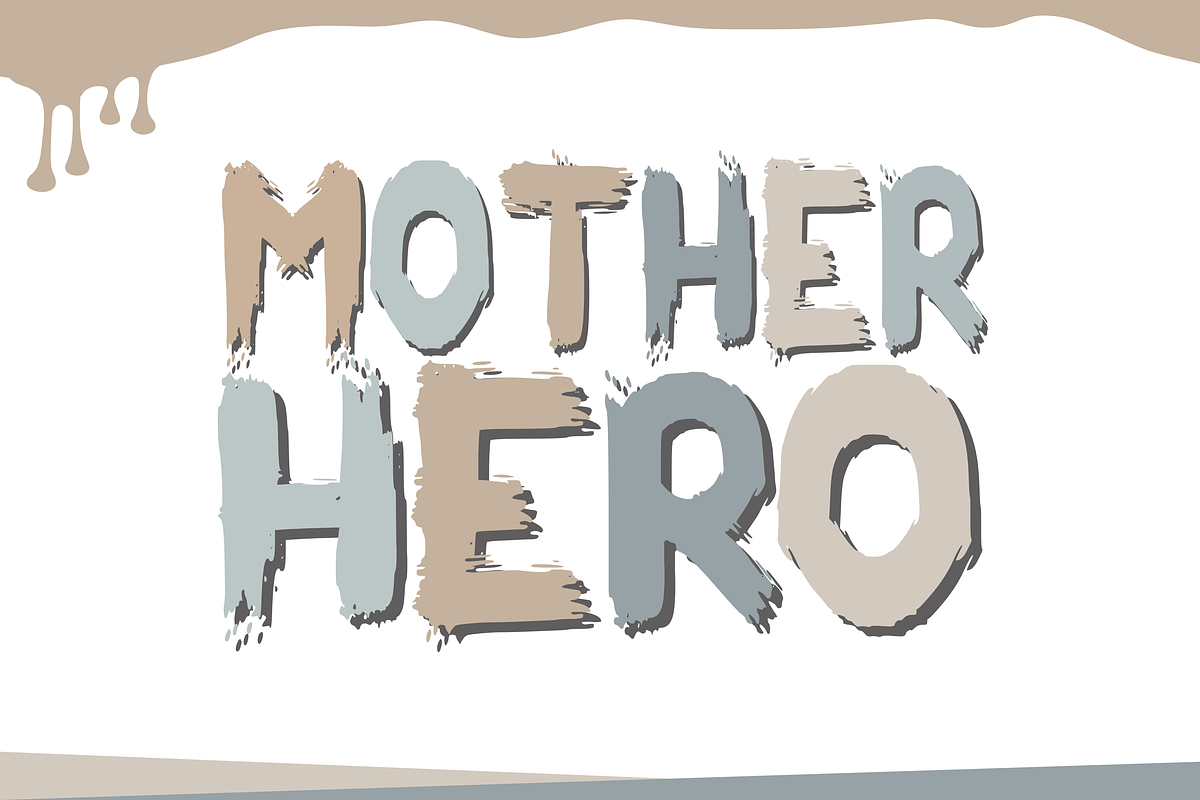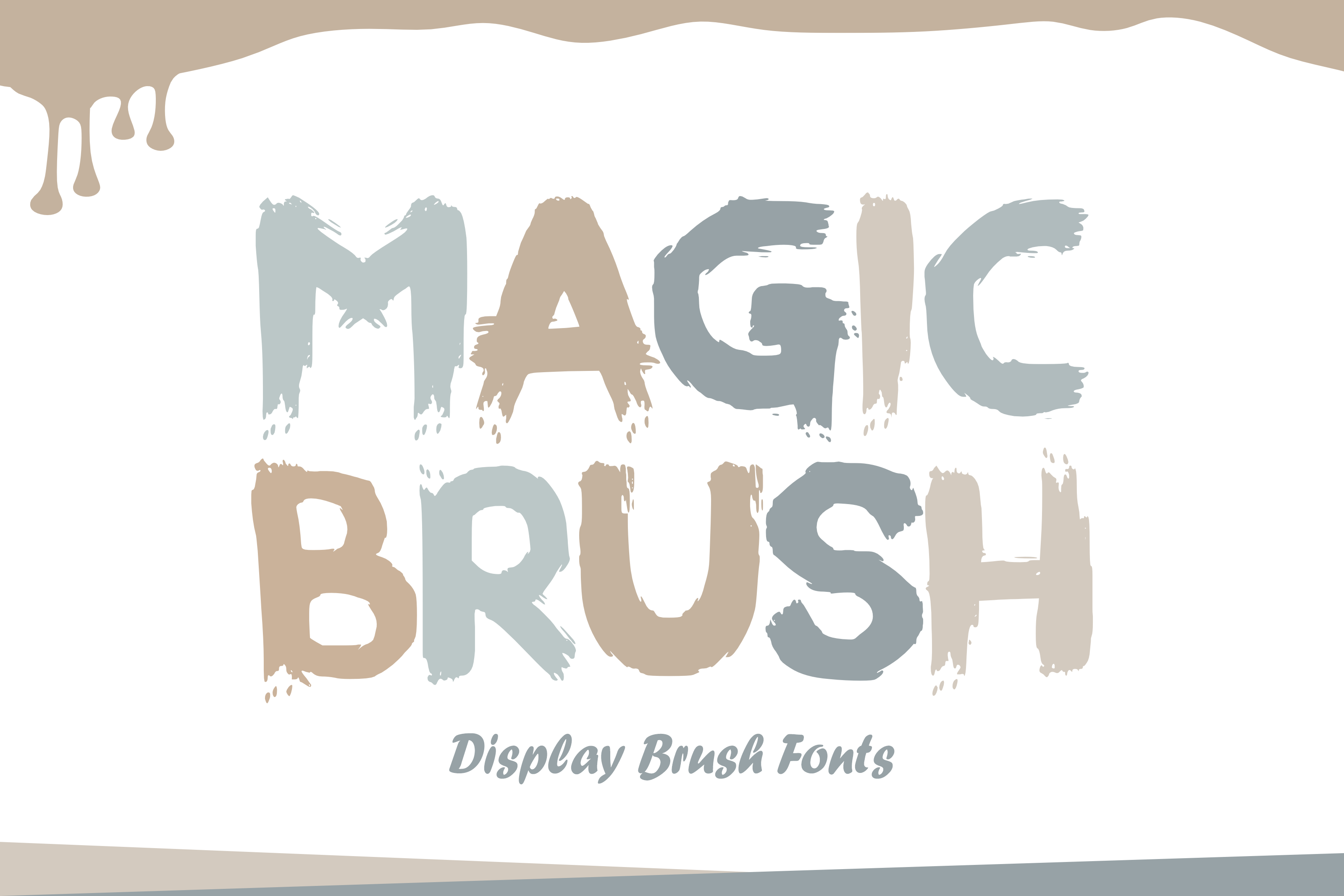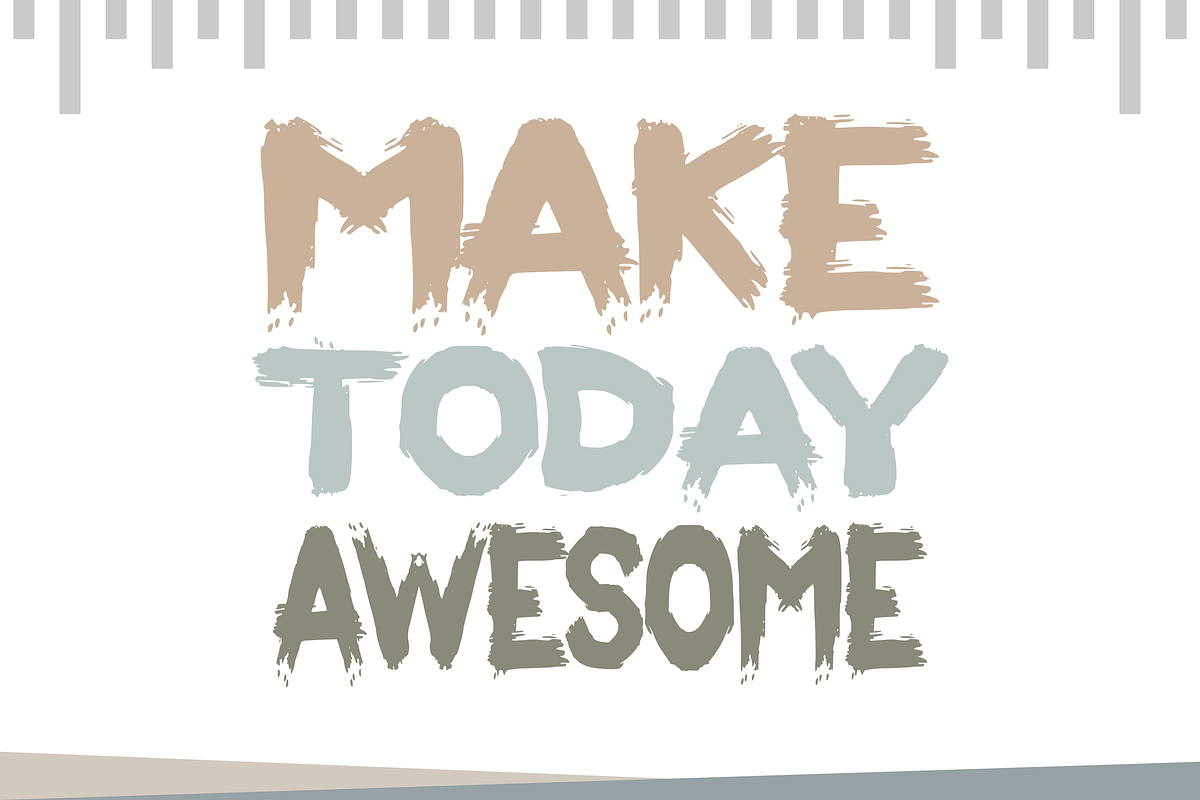
Magic Brush - Brush Font Types
Magic Brush is a stylish brush font with a contemporary feel and perfect shapes, inspired by timeless classic calligraphy. This balanced and varied font is designed to enhance the beauty of your projects. Such as posters, invitations, advertisements, or films.